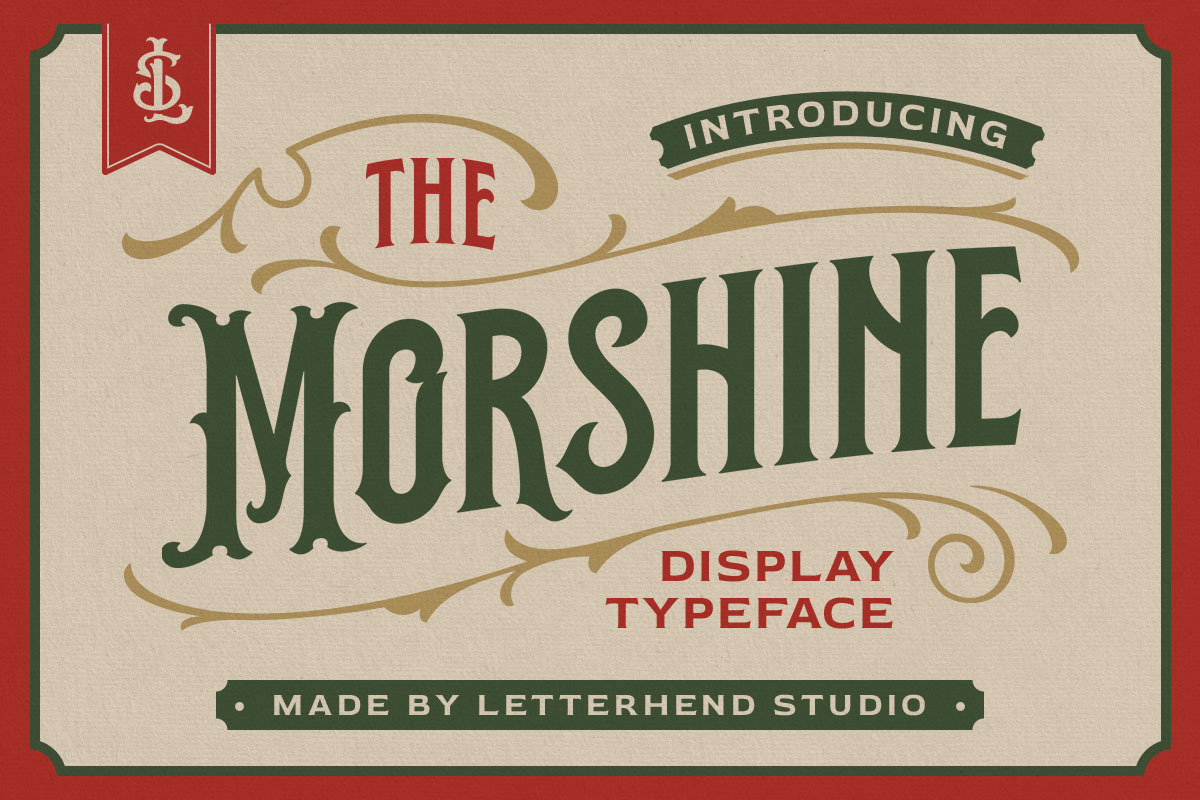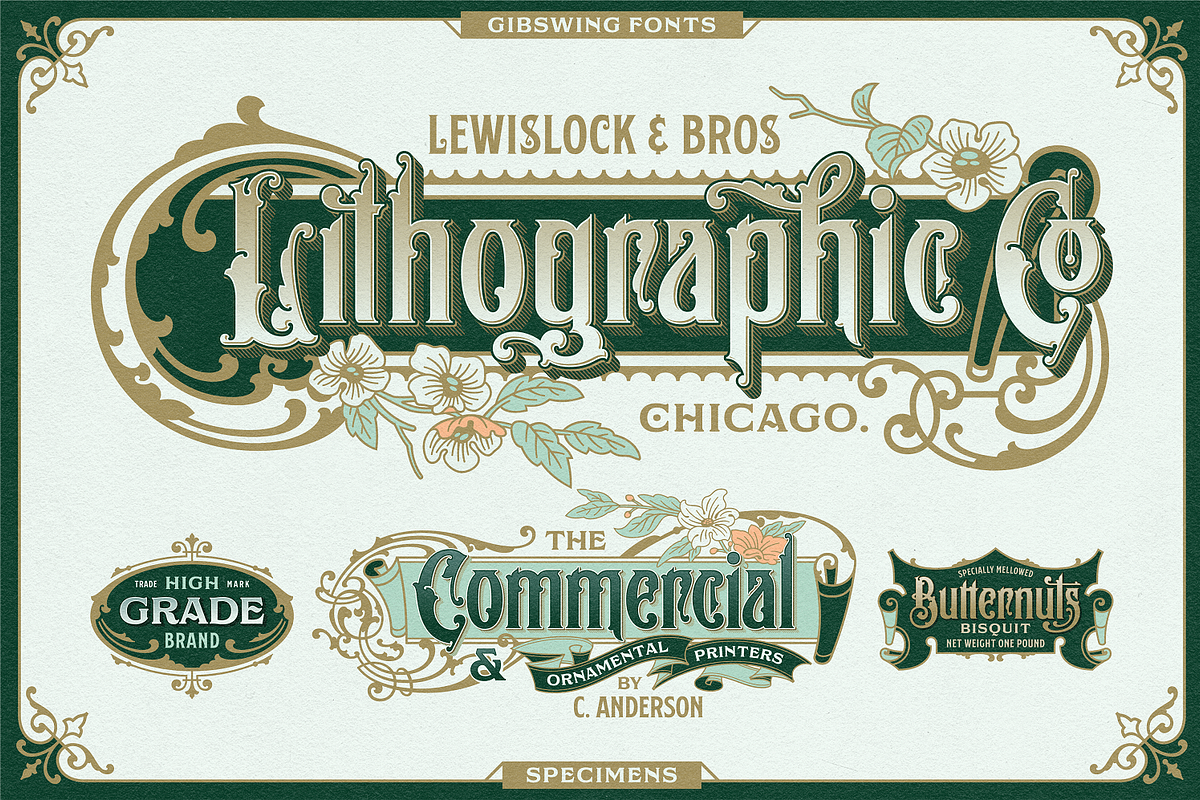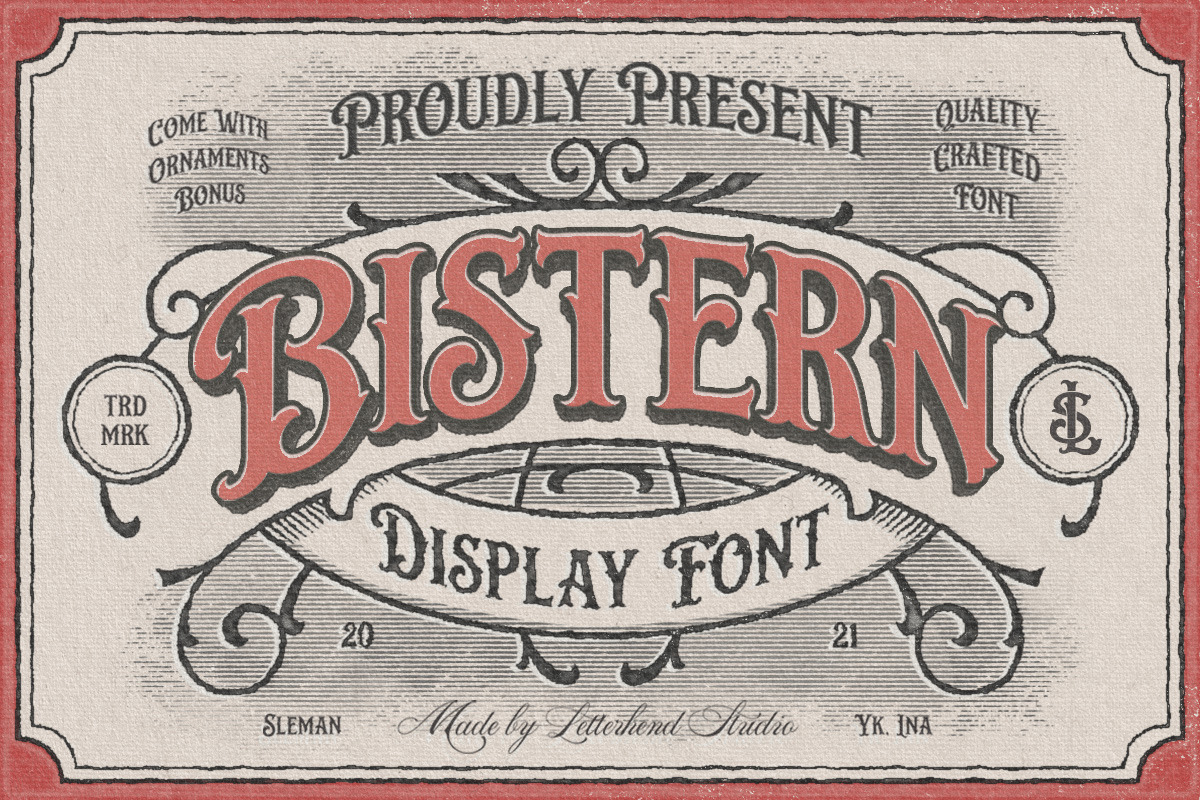
Looking to enhance your design projects with stunning vintage aesthetics? Look no further than best Victorian fonts. These elegant typefaces offer a plethora of beautifully crafted characters, enabling you to create captivating designs with utmost stylistic expression.
With an array of character options and intricate vector ornaments, Victorian fonts are compatible with various design software, ensuring accessibility and ease of use. Transport yourself to an era of unparalleled elegance and sophistication, where ornate designs flourished with artistic allure.
In the realm of fashion, none compare to the colorful and refined Victorian era, which birthed a design style unmatched in its ornamental beauty and creativity. Discover the timeless charm of Victorian fonts and elevate your design projects to new heights of elegance and allure.
1. Morshine – Victorian Display Font
Morshine – Victorian Display Font embodies the essence of vintage lettering with a bold and solid touch. Perfect for headlines, logos, invitations, and more, this typeface exudes old-school charm and sophistication. With its uppercase and lowercase letters, numerals, punctuation, and multilingual support, Morshine offers versatility and elegance for your design projects. Elevate your creations with the timeless appeal of Morshine!
2. Bistern – Victorian Display Font
Bistern – Victorian Display Font captures the essence of vintage lettering with its bold and solid design. Perfect for headlines, logos, invitations, and more, this typeface adds a touch of retro charm to any project. With beautiful decorative ornaments included in vector format, creating vintage lettering is effortless. Bistern also features uppercase and lowercase letters, numerals, punctuation, swashes, and multilingual support, making it a versatile choice for various design needs. Elevate your creations with the timeless appeal of Bistern!
3. Arterium – Victorian Font Family
Introducing “Arterium,” a classic Victorian font family that pays homage to the letterheads of the late 1800s and early 1900s. This versatile set includes three major styles—Arterium Regular, Arterium Alternate, and Arterium Side—along with four sub-styles versions such as slant, gradient, outline, and extrude. With its unique design, Arterium makes a bold statement in logo design and adds elegance to any project, from t-shirts to posters, signboards to social media. Complete with A-Z and a-z character sets, numerals, punctuations, ligatures, fractions, stylistic alternates, and multilingual support, Arterium offers endless creative possibilities for your designs.
4. NS Gibswing Fonts + Extras
Introducing NS Gibswing Fonts + Extras, now available at a special 40% discount! Inspired by old fancy lettering, vintage illustration, and Victorian calligraphy, Gibswing transports you back to the 1800-1900 Victorian era with its decorative style. Perfect for adding a classic touch to your designs, whether it’s signage, labels, branding, or logos. The package includes font files in OTF format along with additional vector extras for added versatility.
5. Paper Tiger – Victorian Font Madness
Dive into the world of Paper Tiger – an extraordinary font package curated by Fenotype. With its Victorian Script, condensed flared serif, and chunky sans serif, this collection offers a plethora of design possibilities. Whether crafting logotypes, posters, or packaging, Paper Tiger fonts, available in both clean and rugged versions, deliver a timeless charm. Explore its features like Contextual Alternates, Standard Ligatures, and Swash for a touch of sophistication in your projects, from book covers to craft ale labels.
6. Waldorf Astoria Modern Vintage Font
7. Ghosthey Victorian Typeface
Ghosthey Victorian Typeface is a modern interpretation of the classic Blackletter style, offering a strong and unique aesthetic. Packed with alternative characters like swashes and ligatures, this font is perfect for creating designs with bold or dark themes. Its multilingual support adds versatility for use in various international languages. Ideal for music album covers, tattoo logos, whiskey labels, and more, Ghosthey Typeface brings a dark and powerful vibe to your projects.
8. Pamors Victorian Font
Pamors Victorian Font is a bold and daring blackletter typeface designed to convey strength and power. With both regular and italic styles, it offers versatility for various design needs. Featuring 799 characters and extensive multilingual support, including PUA unicode for special characters, Pamors stands out with its elegant ligatures and swashes, adding sophistication to any project. Whether for headlines, logos, or body text, Pamors Victorian Font makes a bold statement that captures attention effortlessly.
9. Norfolk : Layered Vintage Font
Norfolk is a vintage font that draws inspiration from packaging styles of the early 1900s, offering a genuine and timeless aesthetic reminiscent of that era. This font family includes three styles: Fill, Inline, and Outline, which can be used individually or layered to create diverse vintage effects for any project. Whether for branding, packaging, or publications, Norfolk lends itself well to headers and titles. The package includes OTF and WOFF files for ease of use across various design platforms.